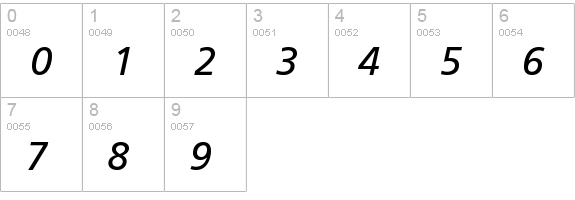
SALFrutiger-Italic Font Details
SALFrutiger-Italic is a distinctive, italic variant in the SALFrutiger typeface family \xE2\x80\x94 well suited to design and typography projects.
SALFrutiger-Italic is an exquisite font that effortlessly captures elegance and sophistication. Its slanted, italicized design adds a touch of grace and fluidity to any text, making it perfect for formal documents, invitations, and artistic creations. The smooth and refined curves of SALFrutiger-Italic create a harmonious balance between tradition and modernity. Each letter is meticulously crafted, showcasing the attention to detail that went into its creation. The font's legibility remains uncompromised even in smaller sizes, ensuring clarity and readability in all contexts. SALFrutiger-Italic is the ideal choice for those seeking a font that exudes charm and professionalism. Whether used for professional presentations or personal projects, this font effortlessly elevates any design, leaving a lasting impression on the reader. What makes SALFrutiger-Italic even more enticing is the fact that it is freely available to download at FontsMarket.com. This means that anyone can access and utilize the font, without any restrictions or limitations. This generous offering ensures that SALFrutiger-Italic can be enjoyed by individuals and businesses alike, adding a touch of sophistication to their typography without any cost. So, if you are looking for a font that combines elegance, readability, and utmost versatility, look no further than SALFrutiger-Italic. Download this captivating font for free at FontsMarket.com and elevate your design to new heights of excellence.